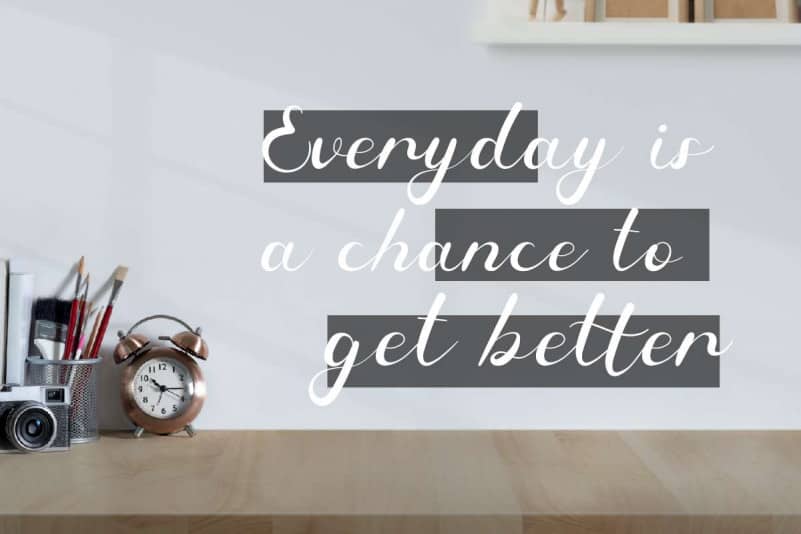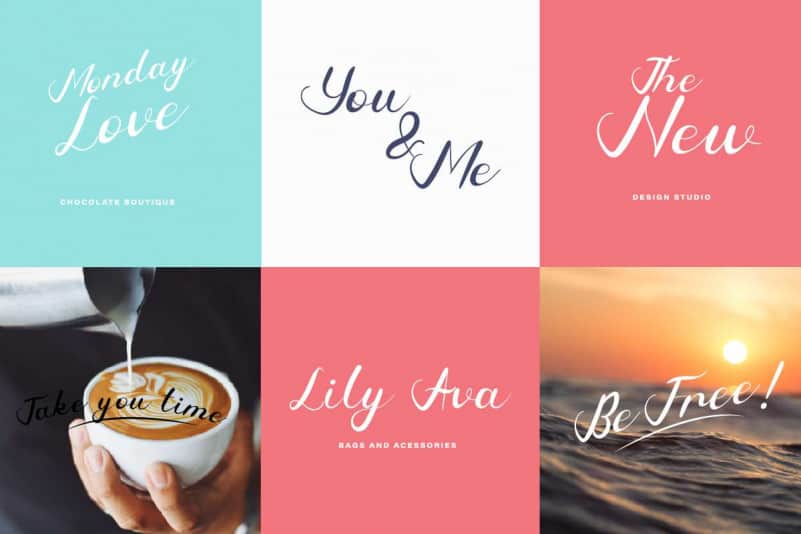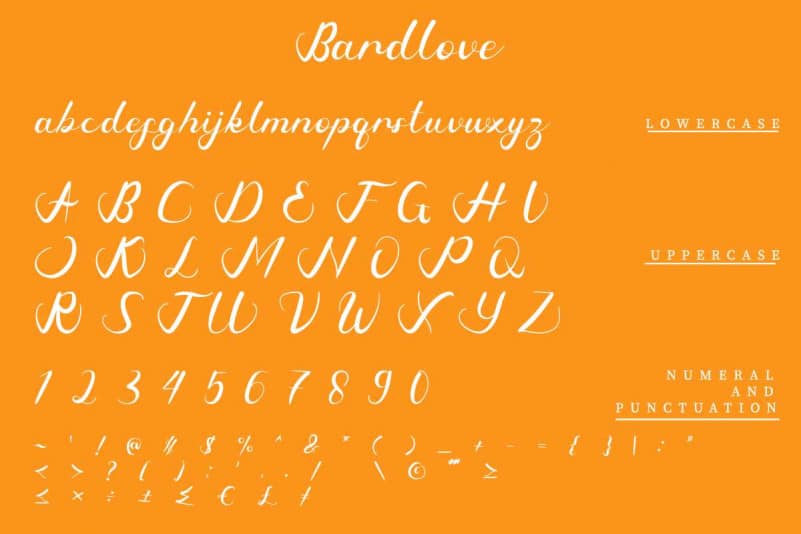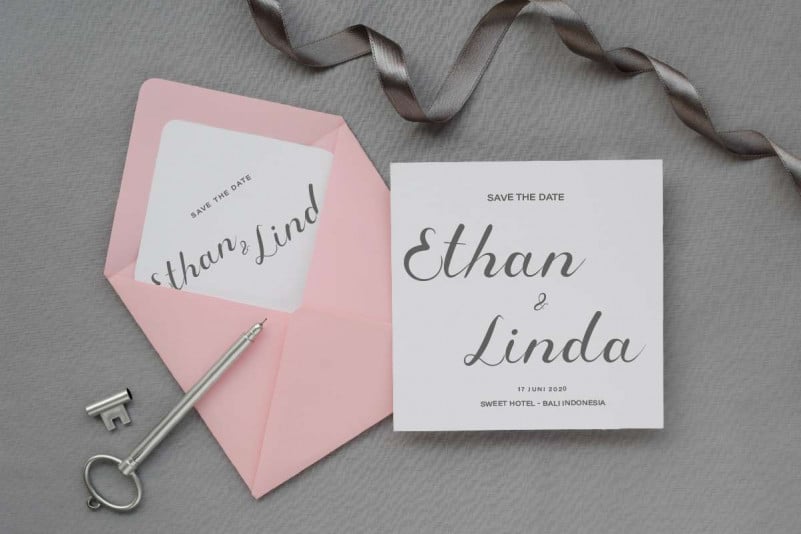
Bardlove Calligraphy Font
Bardlove Calligraphy Font is an exclusive script typeface with gorgeous style. This font has a stunning characters set, perfectly managed with well spaced and kerning. The theme style of this font will elegant, glamour, modern, vintage, stylish, sophisticated and classic brush calligraphic style. You wont find any where else, the font like Bardlove Calligraphy Font
Bardlove Calligraphy Font will be great for any projects including : branding, logo, stationery, business card, signage, flyer, brochure etc. Almost all industries will be match for this typeface: wedding, events, real estate, architect, law firm, florist, gardening, makeup artist, travel, hotel, musician etc